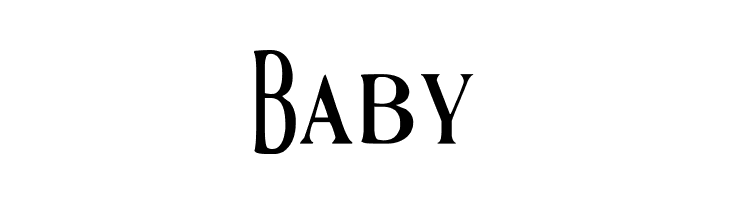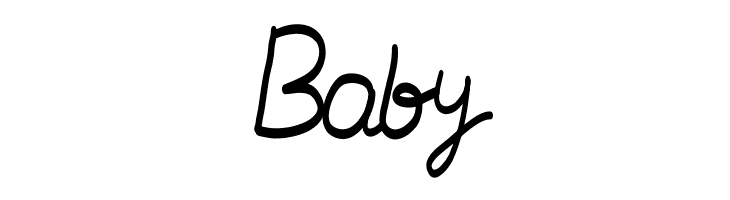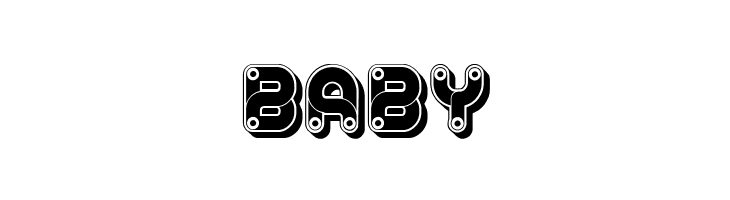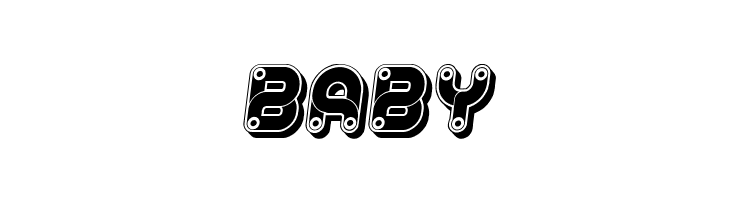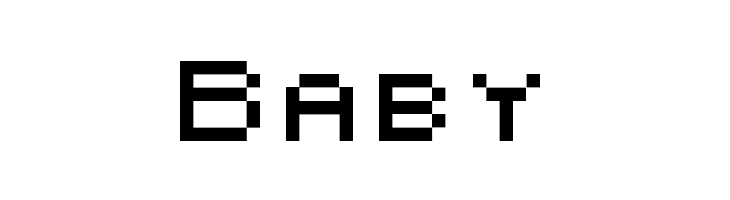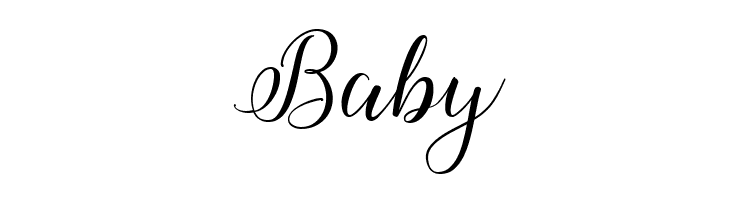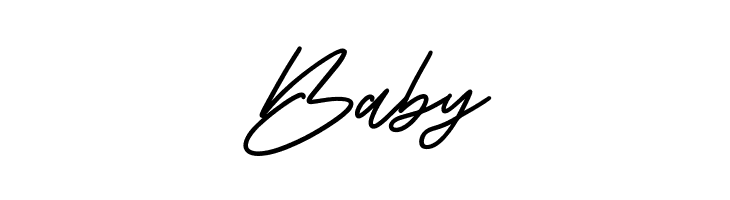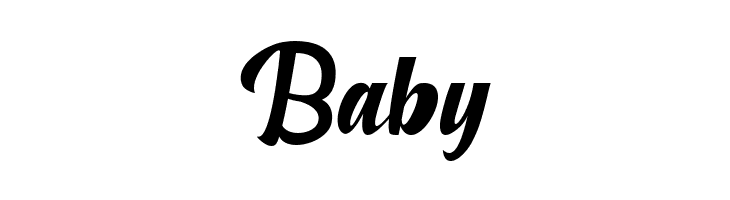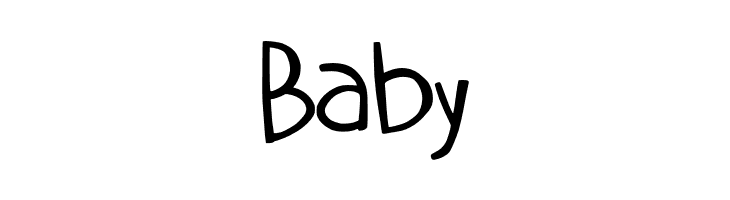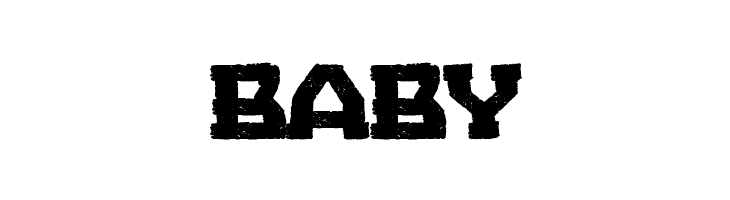
( Fonts by Amazingmax - Maxim Avdeev )
A bold, geometric font with sharp angles and a futuristic inline design.
( Fonts by Amazingmax - Maxim Avdeev )
A bold, angular, and italicized font with a futuristic style.
( Fonts by Amazingmax - Maxim Avdeev )
A bold, angular font with a futuristic and dynamic design.
( Fonts by Amazingmax - Maxim Avdeev )
A bold, geometric outline font with a futuristic and edgy style.
( Fonts by Amazingmax - Maxim Avdeev )
A bold, angular font with a futuristic and geometric design.
An elegant, flowing script font with graceful curves and calligraphic flair.
( Fonts by Galdino Otten - galdinootten.com )
A hand-drawn, sketch-like font with tall, narrow letters and a playful style.
A decorative, hand-drawn font with a 3D shadow effect and wavy baseline.
An elegant and flowing script font with classic, cursive characteristics.
A modern, rounded sans-serif font with clean lines and consistent spacing.
A modern, rounded sans-serif font with a clean and approachable design.
A playful, handwritten script font with bold, rounded uppercase and fluid lowercase letters.
( Fonts by Billy Argel Fonts ® )
A bold, decorative font with intricate patterns and strong visibility.
( Fonts by Juan Casco - www.juancasco.net )
A classic serif font with elegant, pronounced serifs and a timeless appearance.
( Fonts by Juan Casco - www.juancasco.net )
A bold serif font with a classic and commanding presence.
( Fonts by DumadiStyle )
Expressive brush script with energetic, handwritten strokes.
( Fonts by Amazingmax - Maxim Avdeev )
Bold, italicized font with a distressed, textured look.
( Fonts by Amazingmax - Maxim Avdeev )
A bold, distressed font with a rugged, textured appearance.
( artvsaccounting.tk/fonts )
A bold, slanted font with a dynamic and playful style.
( Ajith Rajan - ajithrajan.tk )
A bold, playful font with rounded, smooth characters and a dynamic slant.
( Ajith Rajan - ajithrajan.tk )
A modern italic font with smooth, slanted letterforms and a sleek, dynamic appearance.
A bold, modern sans-serif font with a distressed texture.
A bold, distressed sans-serif font with a vintage, rugged texture.
An elegant and decorative script font with flowing, cursive letters.
A dynamic script font with fluid, cursive strokes and a natural handwriting style.
A dynamic, cursive script font with a fluid, handwritten style.
A fluid and elegant script font with a handwritten style.
Elegant cursive font with a signature-like flow.
A bold, elegant cursive font with high contrast and decorative swirls.